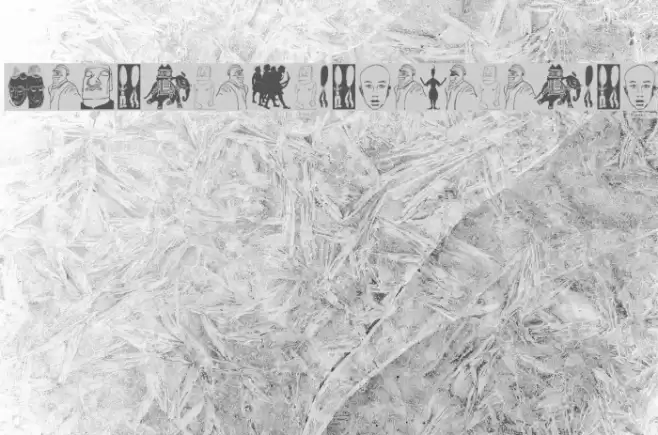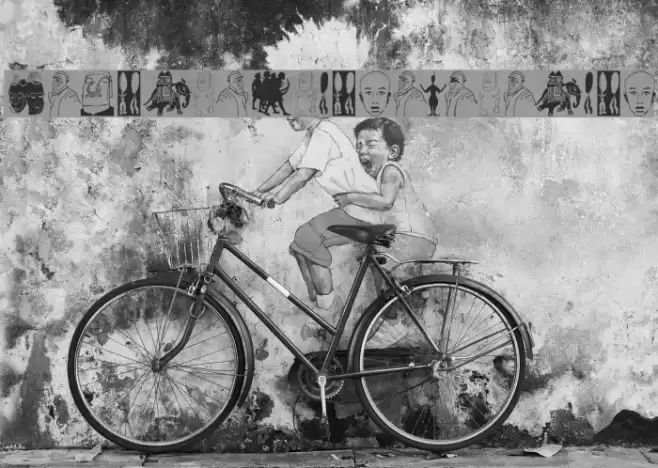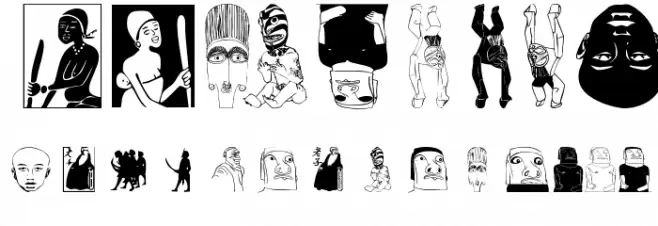
EthnicReconstructions Font
EthnicReconstructions Description
A highly decorative and illustrative font composed of ethnographic and cultural motifs, featuring human figures, masks, statues, and traditional scenes in a bold, black-and-white style. Each character is represented by a unique, detailed drawing rather than standard letterforms, creating a visually rich and narrative-driven typeface.
Illustrative, ethnographic font with cultural motifs and figures from Uncategorized fonts.
- Proposed Projects: Posters, art exhibitions, museum branding, cultural event materials, editorial illustrations, album covers.
- Overall Style: Decorative, Ethnographic, Artistic
- Use Case: Display, Posters, Branding, Artistic Projects